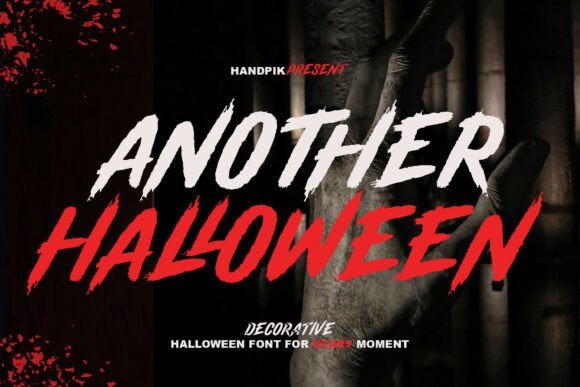
Unleash the Horror: Crafting a Spine-Chilling Visual Identity
It’s the witching hour, and your design project is calling. The clock is ticking, and the pressure is on to create a visual identity that sends shivers down the spine. You’ve got your idea, your concept, but the one thing that’s missing is the perfect font to bring it all together.
That’s where the Another Halloween Font comes in – a high-impact, aggressive display font designed to take your design to the next level. With its raw, textured edge and energetic visual flow, this font is the perfect tool for horror-themed cinematic headers, event marketing, and atmospheric social media graphics. Its value lies in its ability to add an instant sense of urgency and customization, making it a must-have asset for any designer looking to create a truly unforgettable experience.
Another Halloween Font Key Features
- Font Family: The font includes a range of spooky and eerie characters, including uppercase and lowercase letters, numbers, and punctuation marks.
- Unique Characteristics: The font features a distressed, hand-drawn look, with subtle imperfections and texture, giving it a unique and eerie feel.
Another Halloween Font Review
Another Halloween Font is a spooky, yet charming font designed to evoke the spirit of Halloween. ✨ One of its strongest features is its versatility – it can be used for a variety of purposes, from invitations and posters to social media graphics and even web design. The font’s playful, handwritten style is sure to capture the attention of anyone who sees it.
The font’s character set is comprehensive, with a wide range of punctuation marks and symbols. ✨ This makes it easy to use in a variety of contexts, from casual social media posts to more formal invitations. The font’s bold, striking lines also make it easy to read, even at small sizes.
While Another Halloween Font is a great choice for many Halloween-themed projects, it does have some limitations. ⚠️ One of the main issues is that the font may not be suitable for large blocks of text – its playful, handwritten style can become overwhelming when used extensively. Additionally, the font may not be the best choice for projects that require a more formal, elegant look.
In terms of overall impression, I would say that Another Halloween Font is a solid choice for any Halloween-themed project. ✨ While it may have some limitations, its versatility and playful style make it a great option for designers looking to add a touch of spooky charm to their designs.